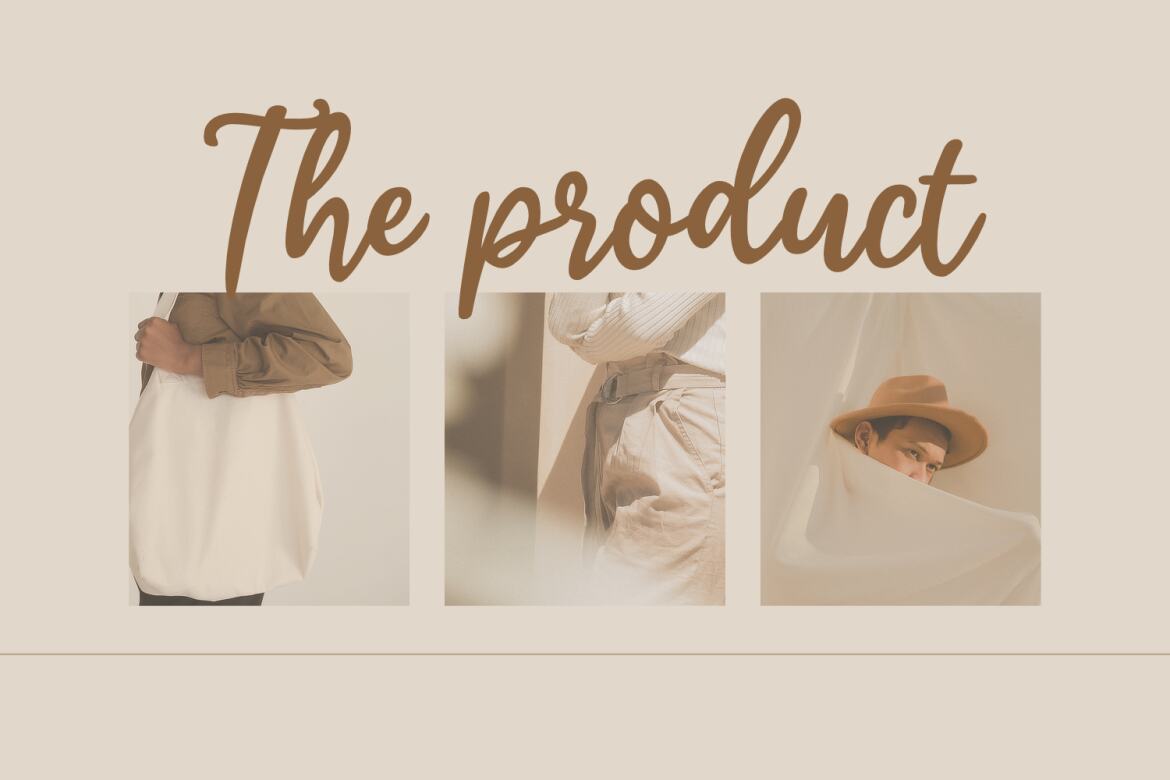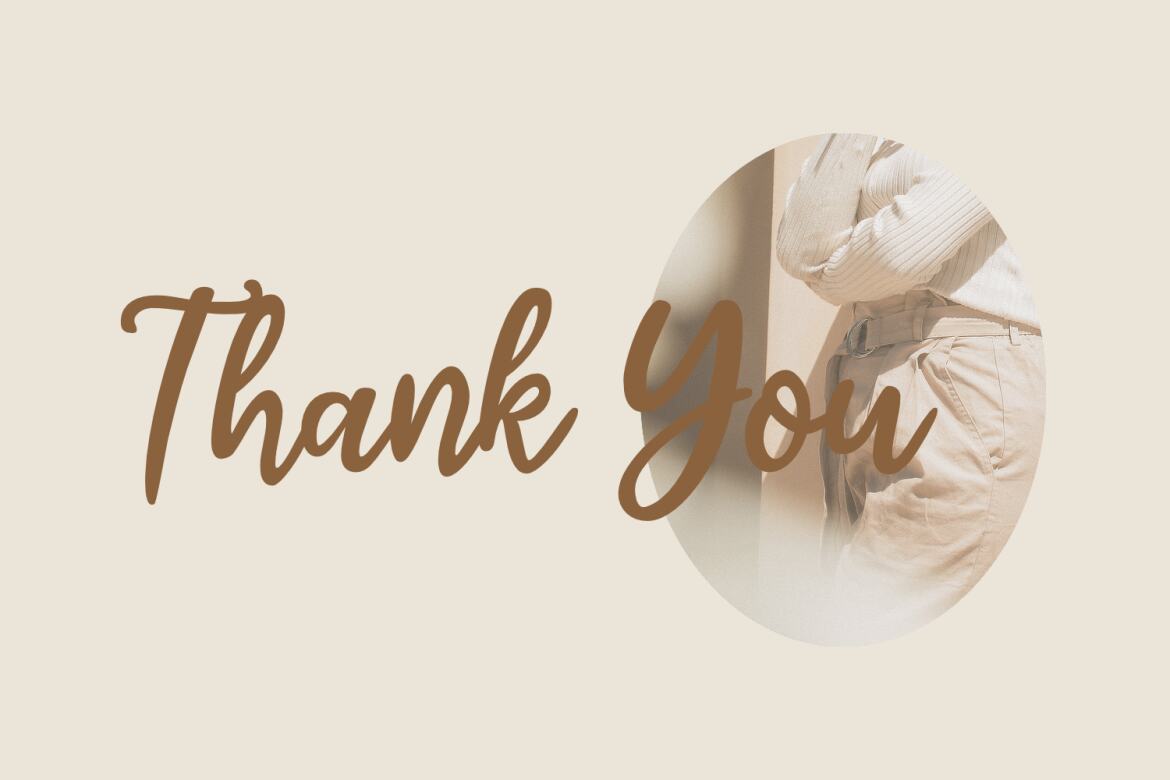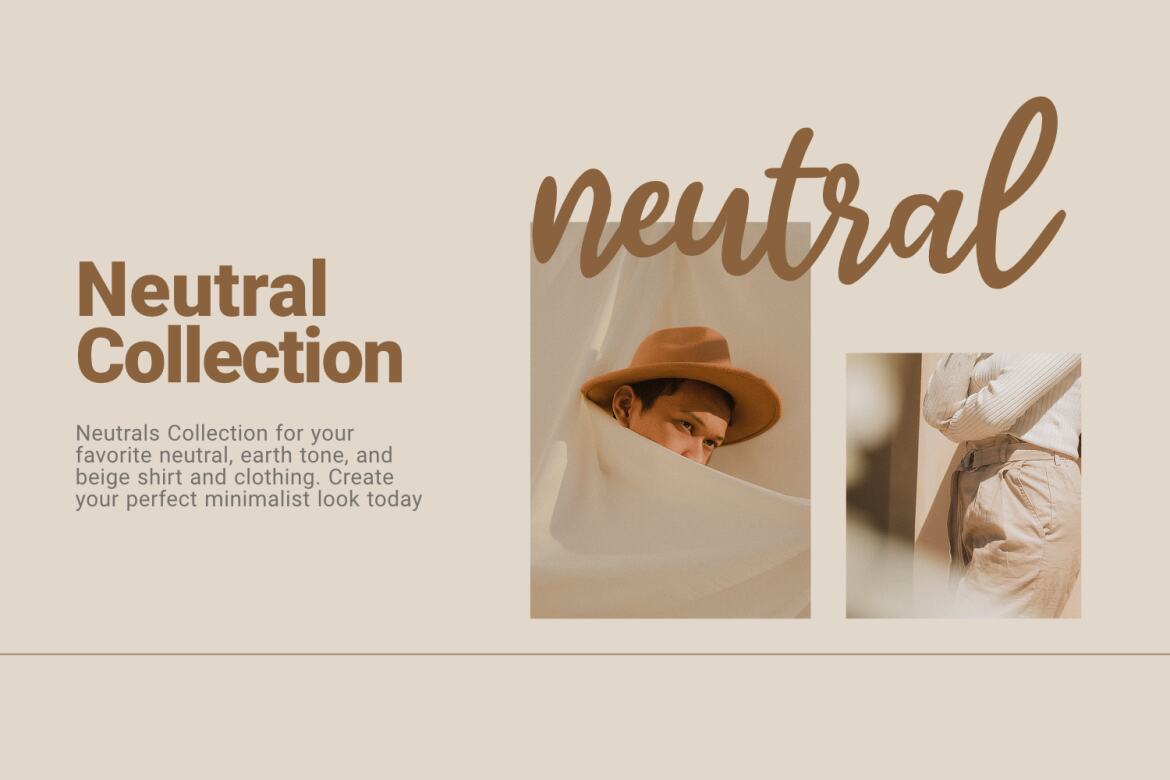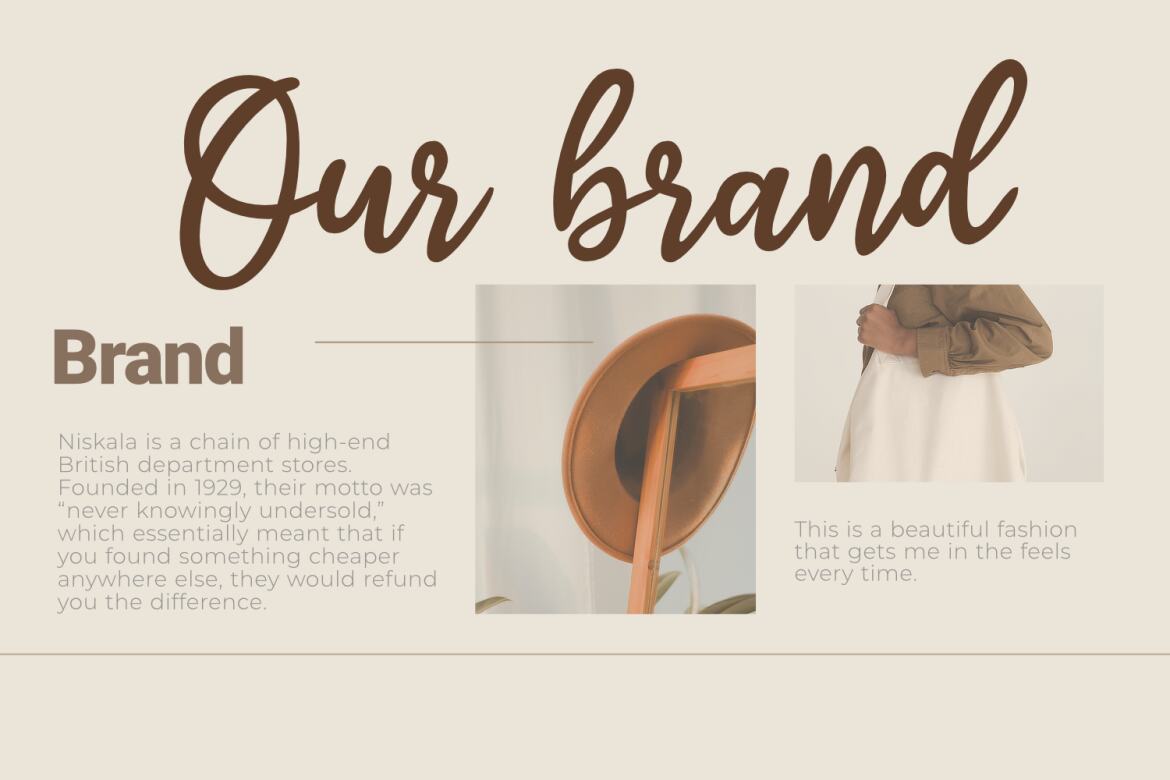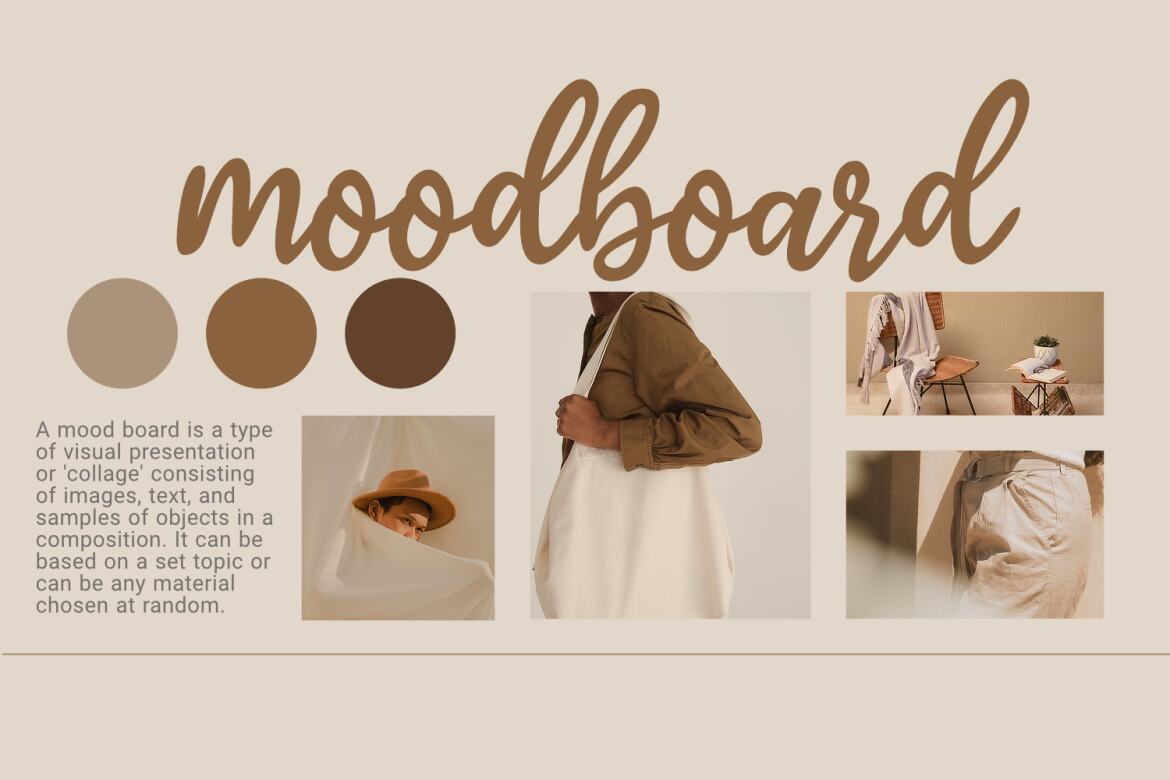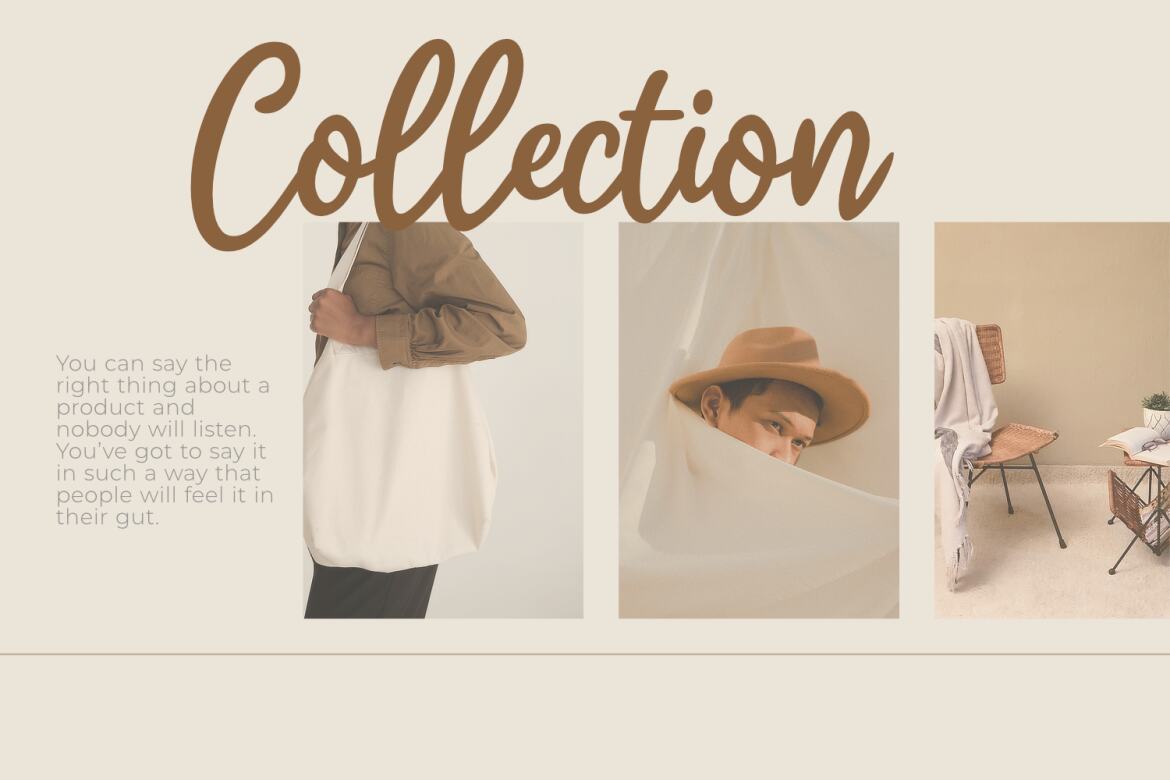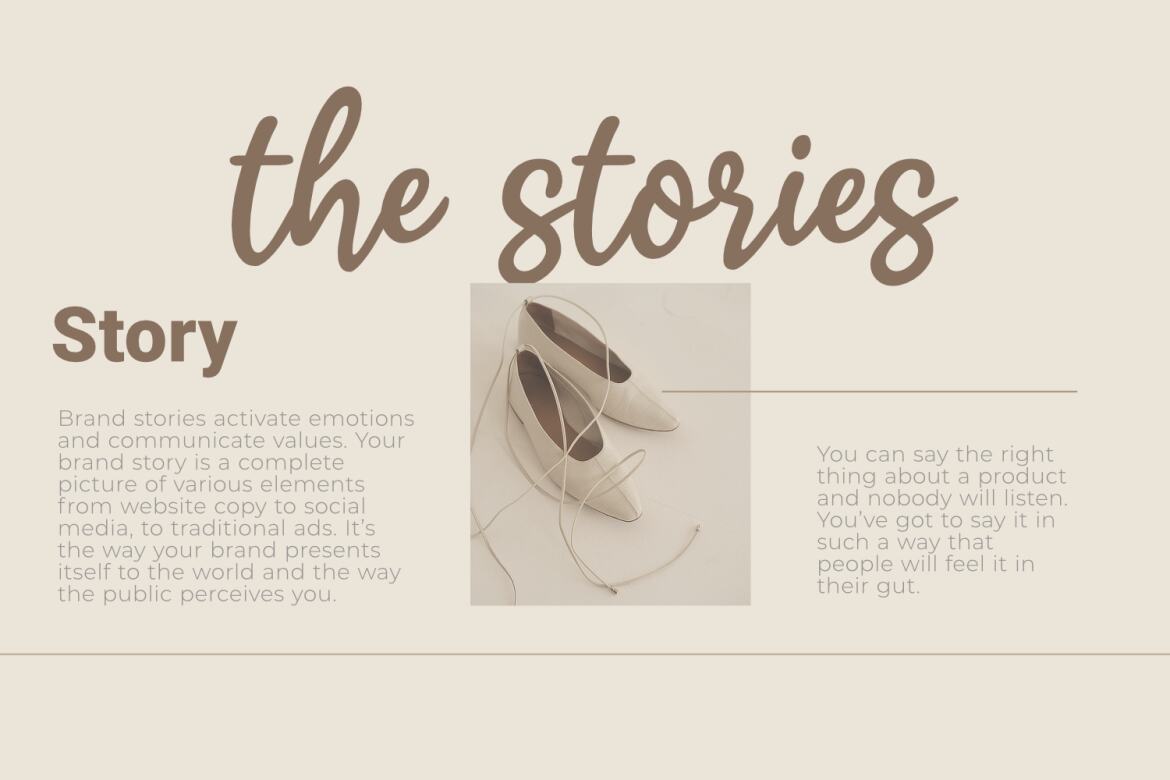
Lofty Goals - FREE Script Font
Lofty Goals is a sweet, whimsical, flowing and bold script font. Featuring characters that dance along the baseline, this font will add a luxury spark to any design project that you wish to create!